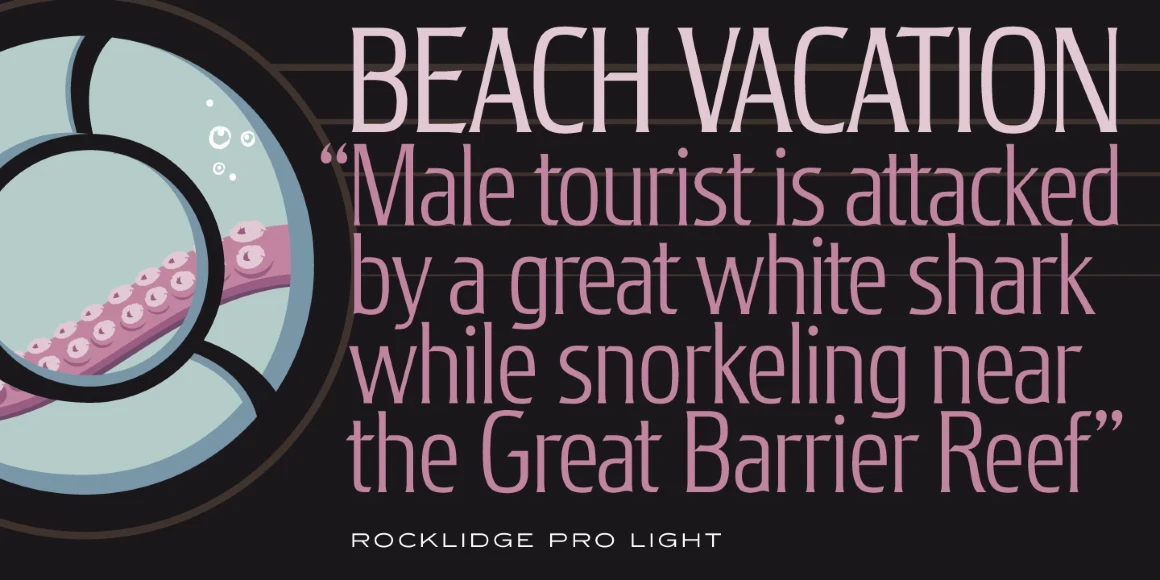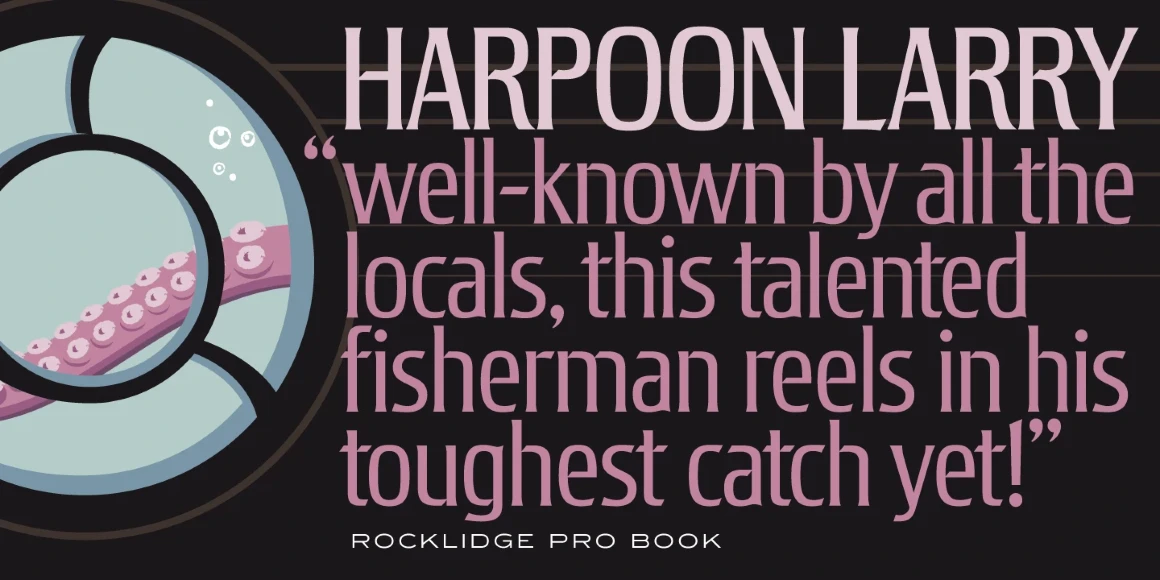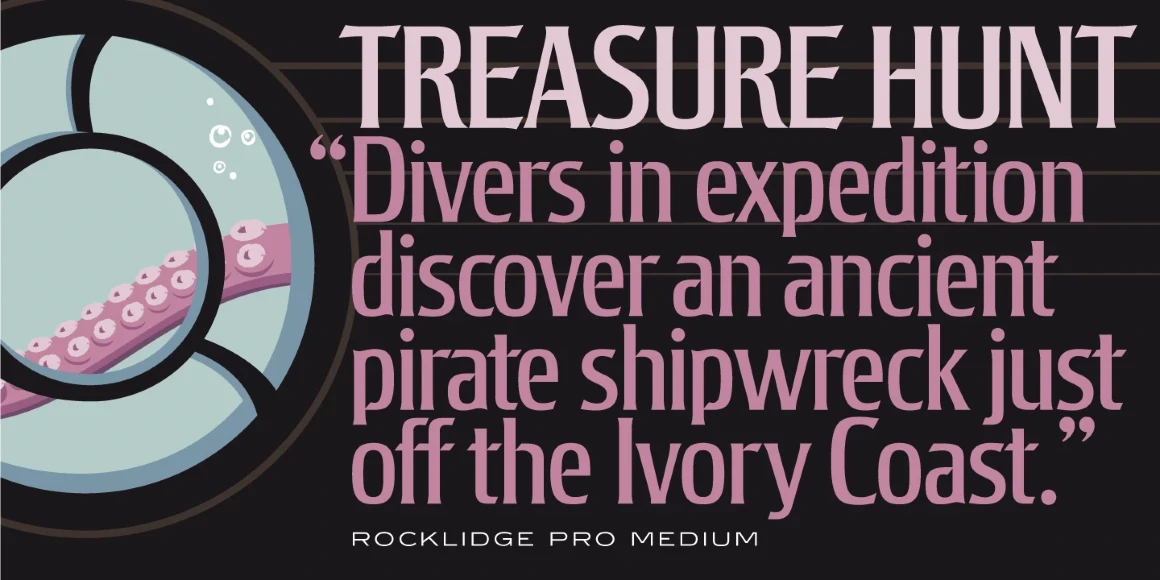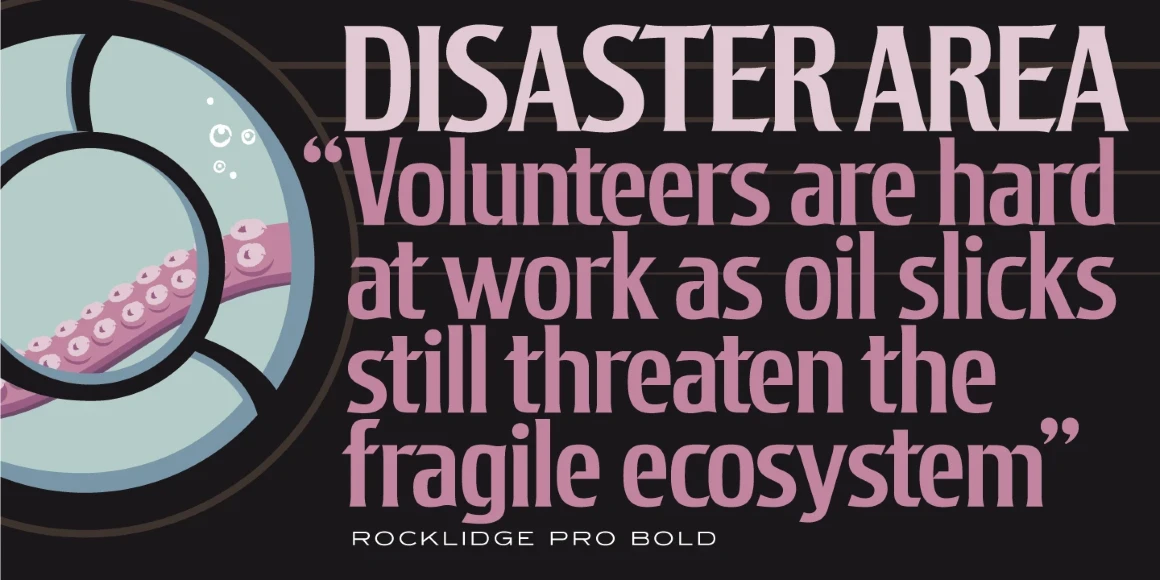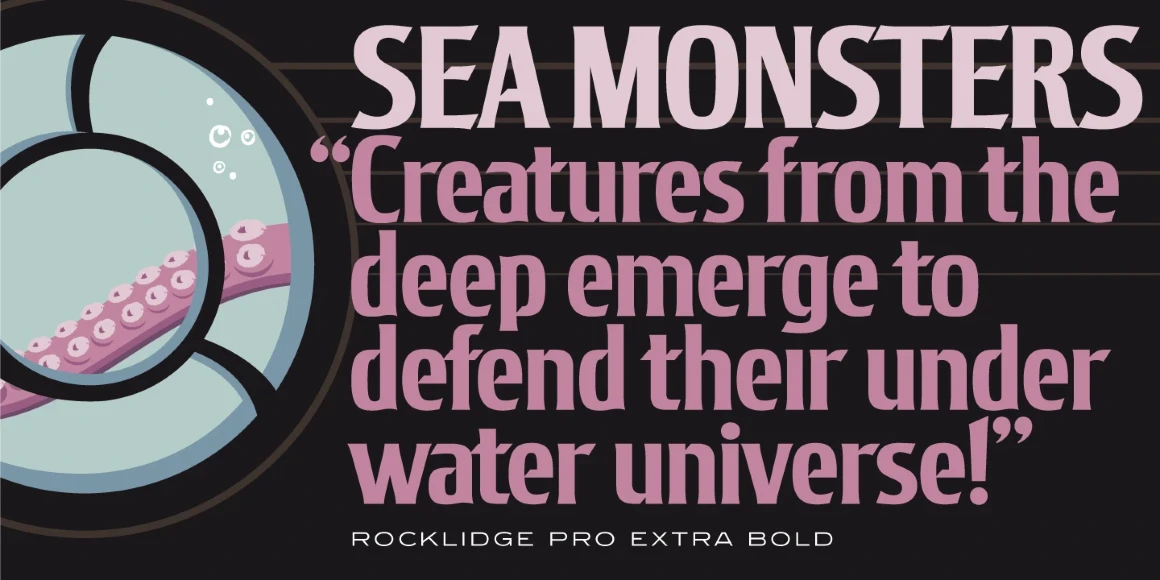
Rocklidge
Rocklidge is a glyphic font family inspired by the 1965 single-weight typeface ‘Jana,’ created by Richard D. Juenger for the Visual Graphics Corporation (VGC). In 2011, the original concept was expanded into five different weights by Steve Jackaman from ITF and Ashley Muir. The angular joints and spur serifs of Rocklidge give it an engraved or scientific appearance, making it elegant and versatile for display at any size.